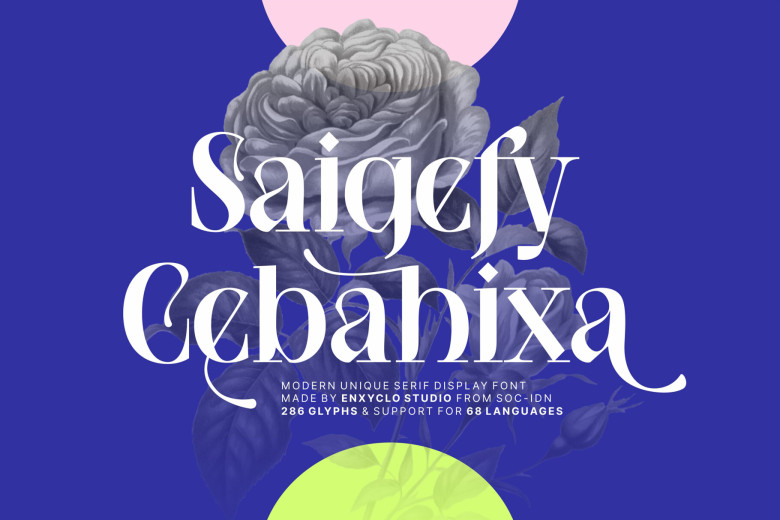
NCL Saigefy Cebahixa Font
NCL SAIGEFY CEBAHIXA is an eye-catching serif font designed with display purposes in mind. Carefully considered when its creation, this font was meant to become an eye-catcher able to take your creative ideas even further! Perfect for headlines, wedding billboards,
websites titles posters branding logos it will make any project pop with this beautiful addition to any font collection and make you stand out among your competition! With NCL SAIGEFY CEBAHIXA you are sure to make your work truly standout among others!
NCL Saigefy Cebahixa Serif Font